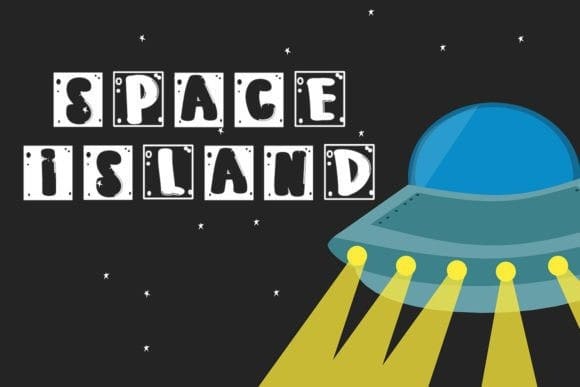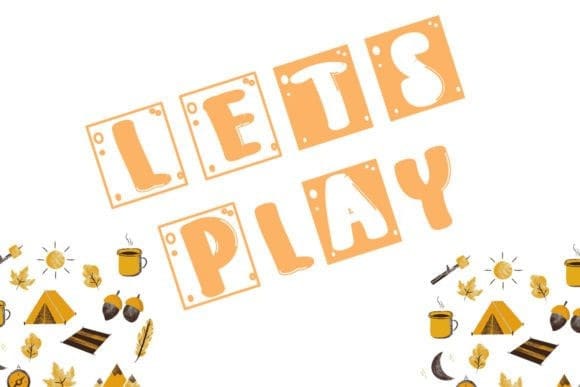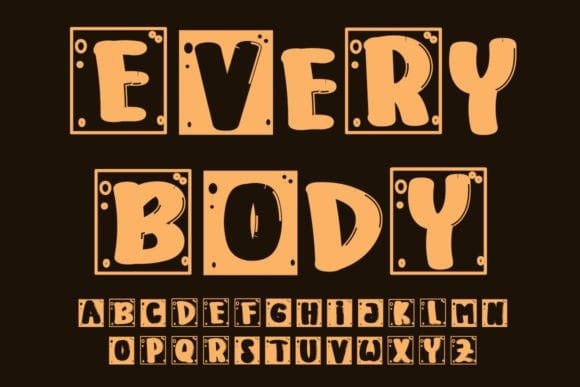
Every Body Font
Every Body Font is a fun and playful display font. Whether you use it for cartoon-related designs, children’s games, or just any creation that requires a lovely touch, this font will be an amazing choice.